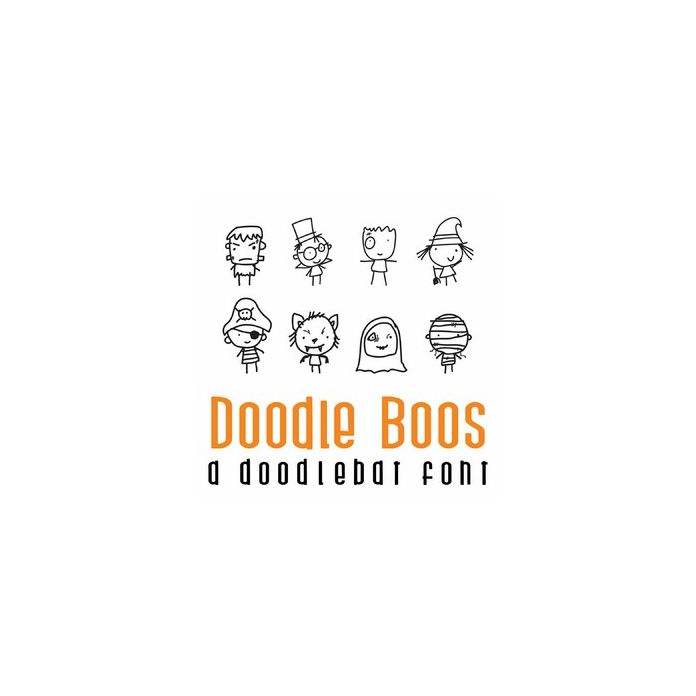
This fun doodlebat font features 26 doodle style Halloween characters. Perfect for cards, gifts, decor, crafts, scrap book pages, planner stickers and more!